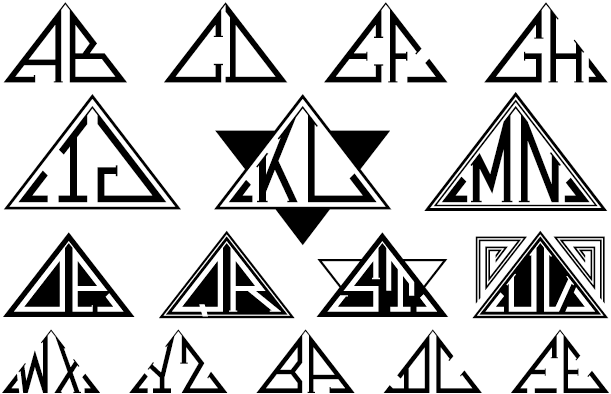
MFC Triangulus Monogram
About MFC Triangulus Monogram
The inspiration source for Triangulus Monogram is a vintage publication called ?Bibliotheque D.M.C: Alphabets et Monogrammes 2nd Series?. Found in that specimen book, is an alternative to the traditionally seen diamond monogram style. A triangular form,…